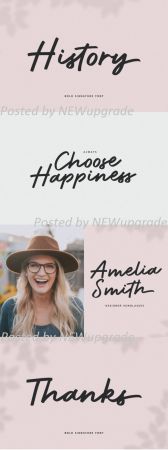
History is a lovely and elegant handwritten font. It looks great on wedding invitations, thank you cards, quotes, greeting cards, logos, business cards and every other design which needs a handwritten touch.
This font is PUA encoded which means you can access all of the glyphs and swashes with ease! It features a varying baseline, smooth lines, gorgeous glyphs and stunning alternates.